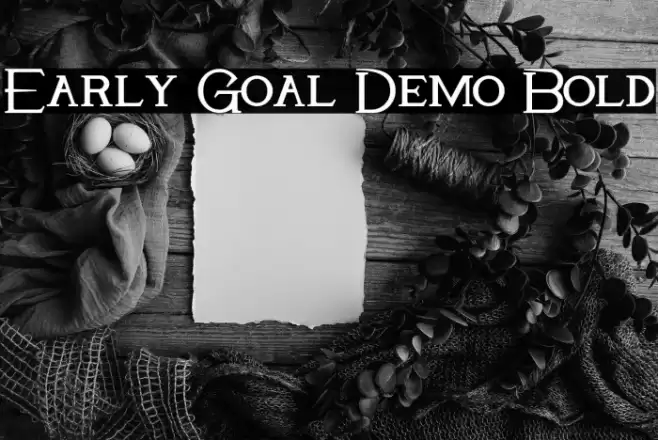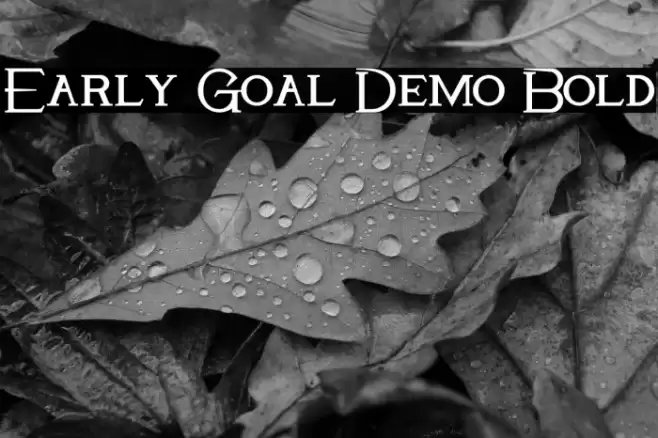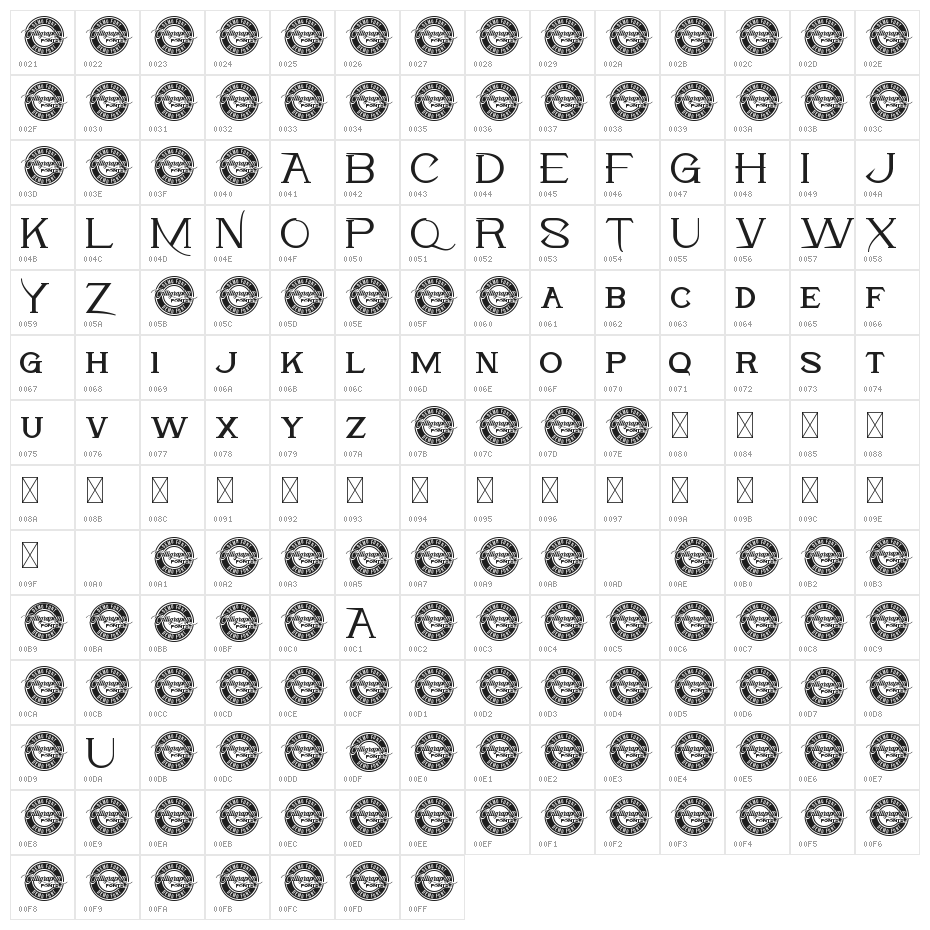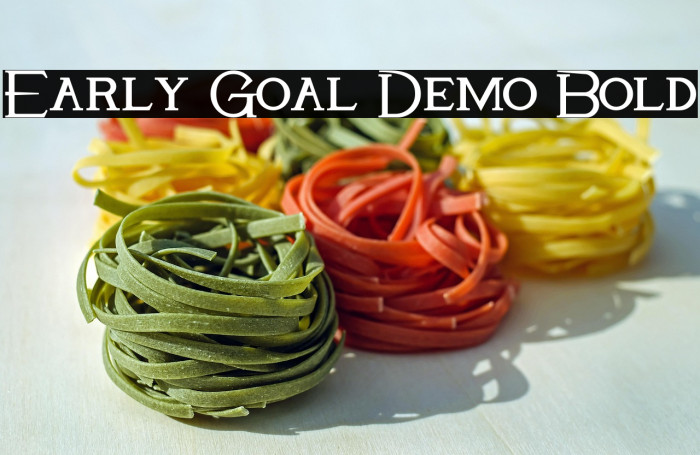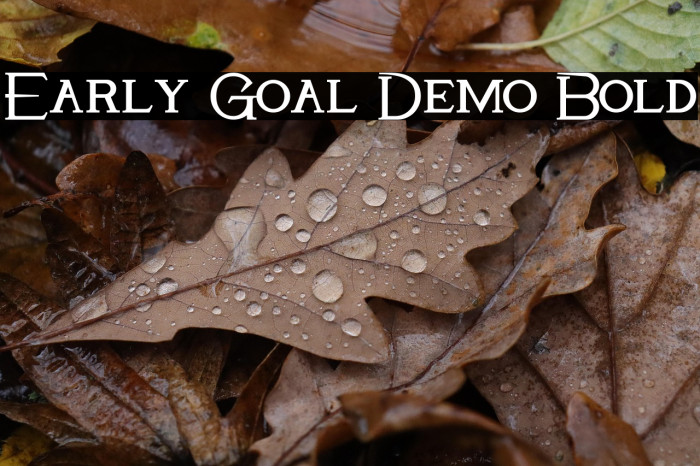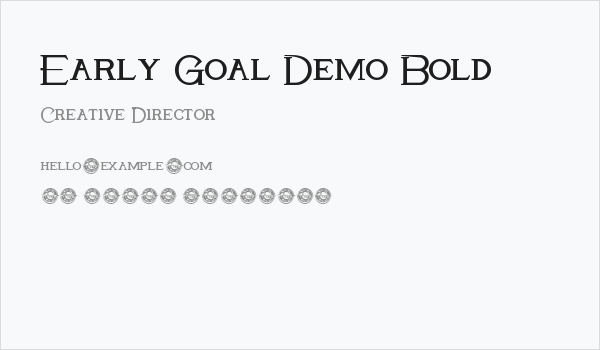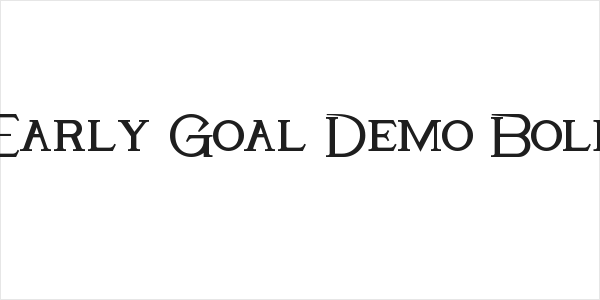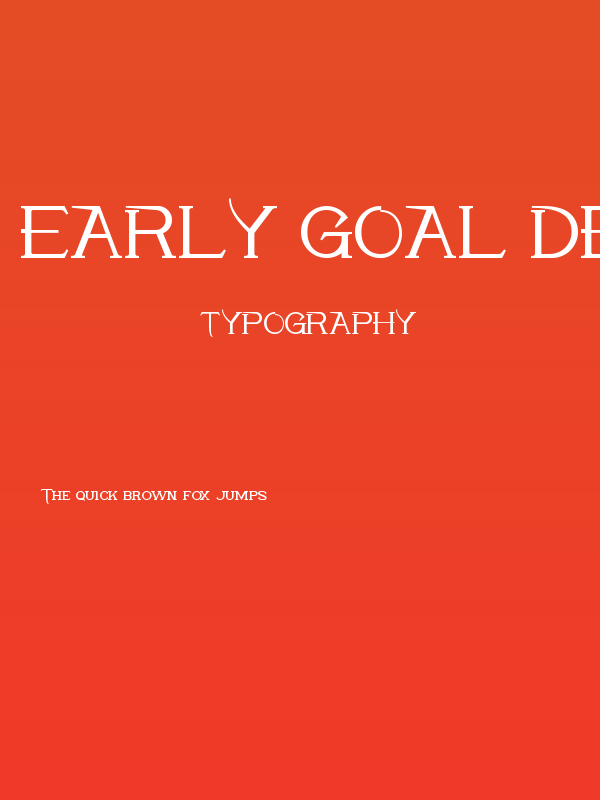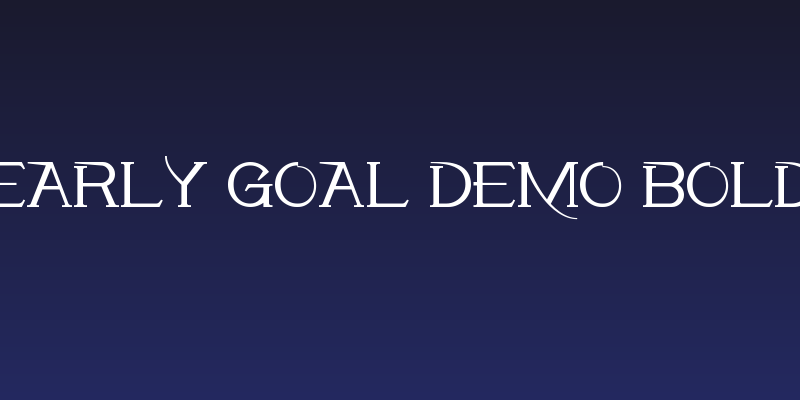
Early Goal Demo Bold Font
Early Goal Demo Bold Description
This font features a bold and striking design with a decorative flair, characterized by its unique serifs and elegant curves. The uppercase letters exhibit a strong presence with their thick strokes and distinctive embellishments, making them ideal for attention-grabbing headlines. The font maintains a consistent weight throughout, ensuring readability while adding a touch of sophistication. Its classic yet modern appeal makes it versatile for various design projects.
A bold, decorative serif font with elegant curves and strong presence from Uncategorized fonts.
- Proposed Projects: Ideal for branding, logos, headlines, posters, and any project requiring a bold, sophisticated look.